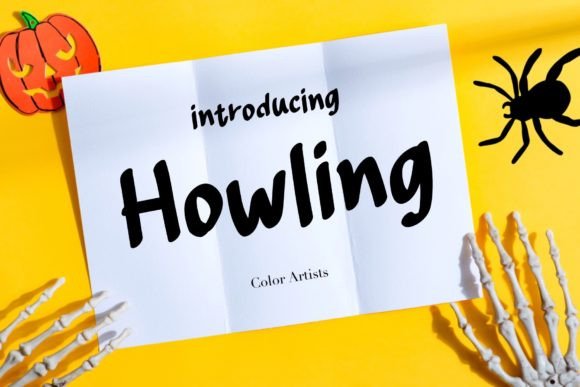
Introducing the Howling Font: Unleash Your Primal Creativity
In the realm of typography, where letters dance and words take flight, there exists a font that embodies the untamed spirit of the wilderness—the Howling Font. This captivating script font, crafted by the masterminds at MyFontsShop, is a symphony of sharp edges and fierce curves, exuding an aura of confidence and igniting a sense of adventure.
Picture your designs adorned with the Howling Font—a branding masterpiece that commands attention, a logo that roars with individuality, and headlines that leap off the page with untamed energy. Let the Howling Font become your creative compass, guiding you to typographic excellence.
The Howling Font's unique character set and eye-catching letterforms are more than just shapes on a screen; they are gateways to a world of possibilities. They are the keys to unlocking your imagination and unleashing your creative potential. With each glyph, you'll find yourself immersed in a realm of boundless inspiration.
Adorn your designs with the Howling Font, and let it unleash the primal energy that lies within. Transform your creations into expressions of raw power and untamed beauty. As you watch your designs come alive, you'll realize that the Howling Font is more than just a font—it's a catalyst for typographic greatness.